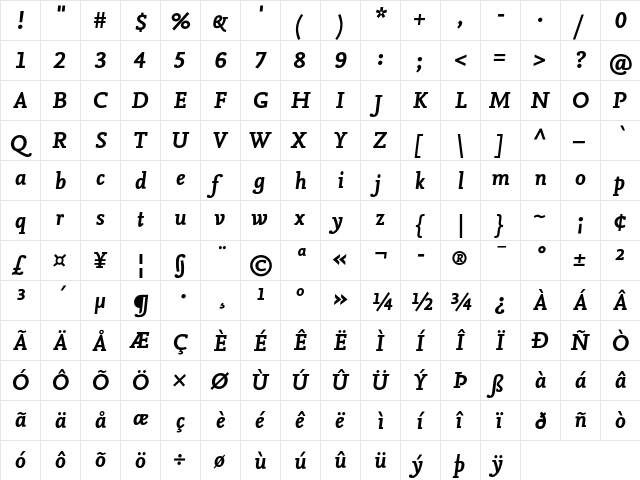
NexusMixTF-BoldItalic Regular Font Preview
Design Context for NexusMixTF-BoldItalic Typeface
NexusMixTF-BoldItalic offers clean, dependable letterforms without strong stylistic allegiance, making it a practical choice for designers who need flexibility. The dynamic lean of this cut emphasises speed and emphasis in any layout. Its bold stroke weight gives it real presence on the page.